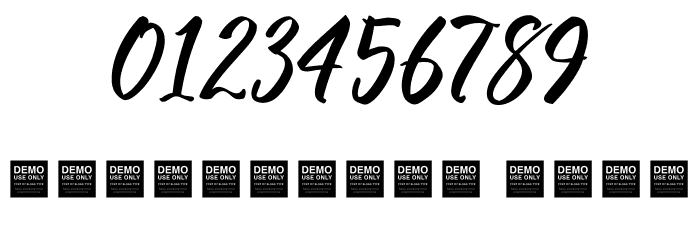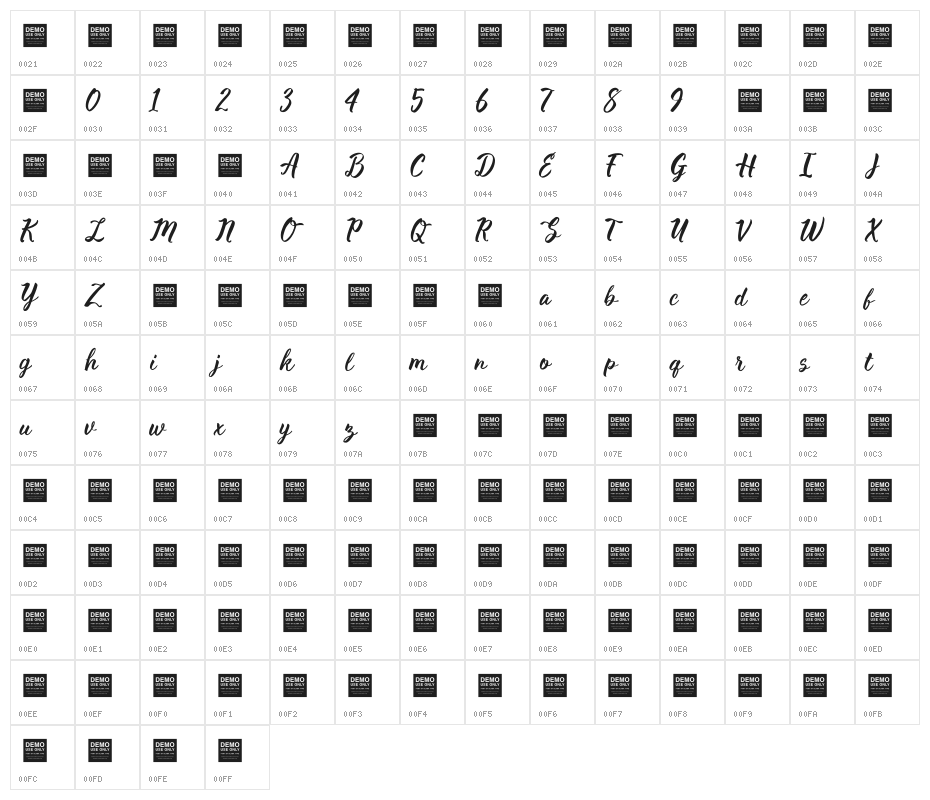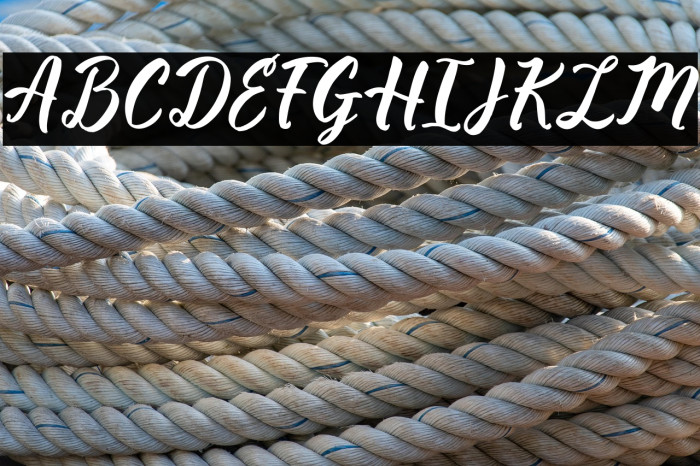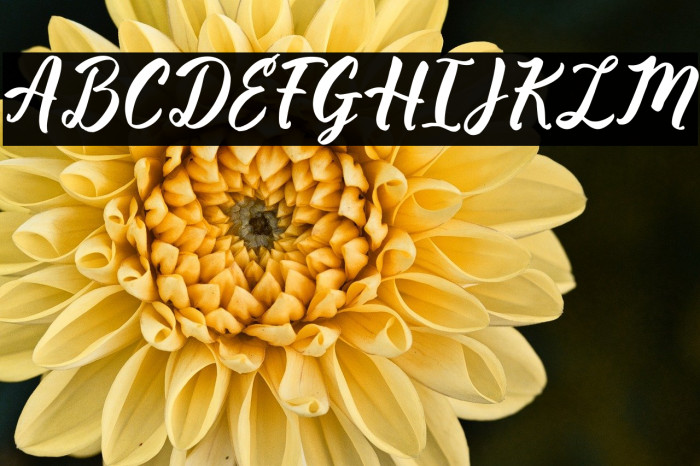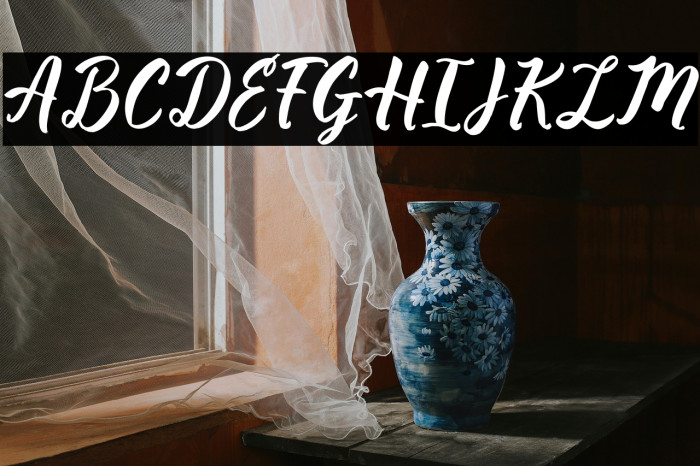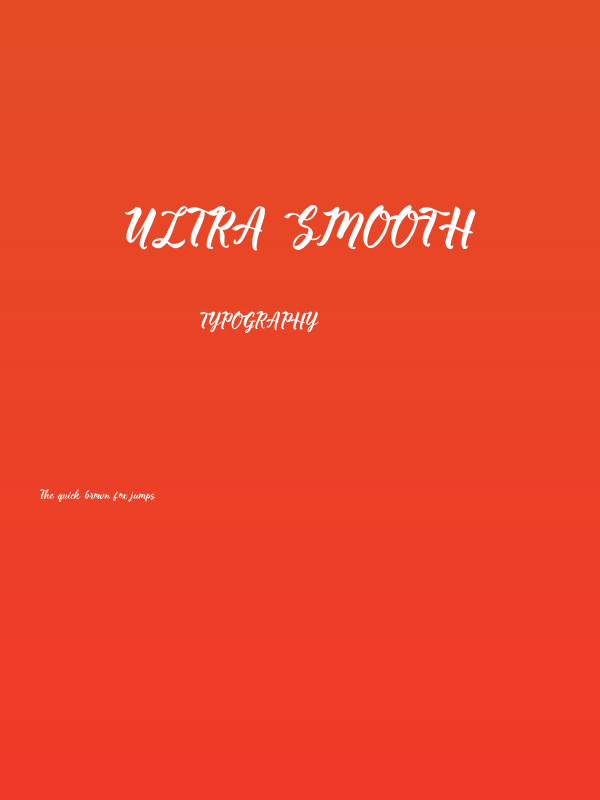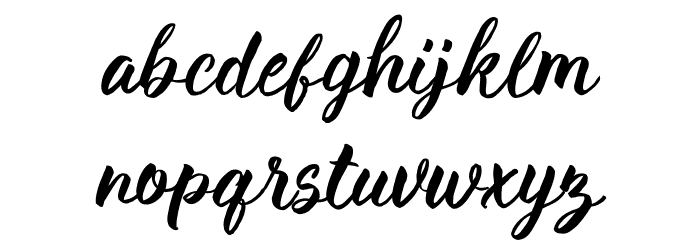
Ultra Smooth Font
Ultra Smooth Description
This font features a smooth, flowing script style that exudes elegance and sophistication. The characters are connected in a cursive manner, providing a seamless and fluid appearance. The uppercase letters are bold and prominent, while the lowercase letters maintain a consistent flow, enhancing readability. The numerals are designed to match the script style, ensuring uniformity across all characters. The font's overall aesthetic is both modern and classic, making it versatile for various design needs.
| Overall Style | Modern Classic |